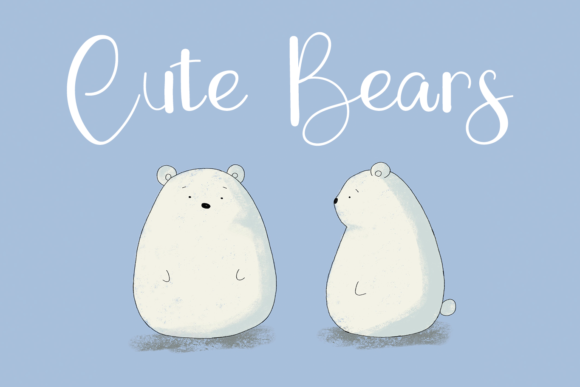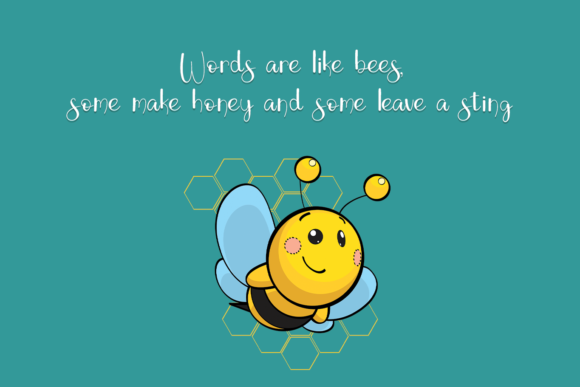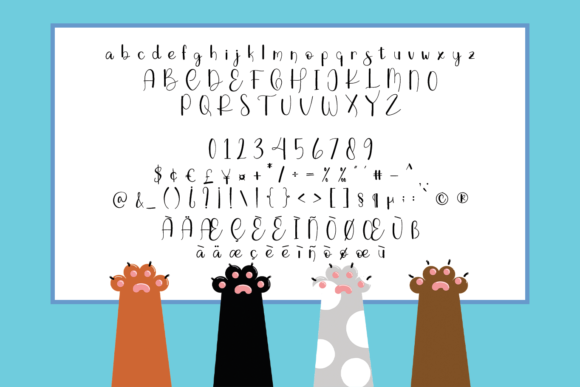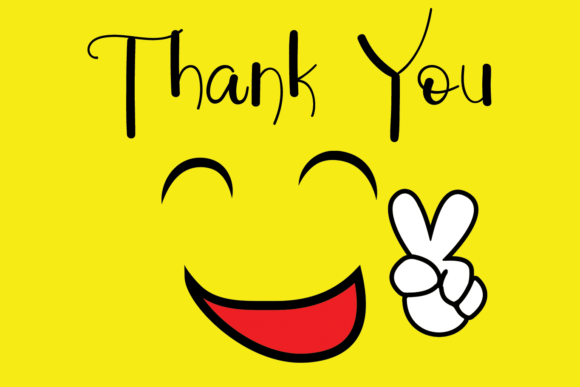
My Way Font
About My Way Font
My Way is a cool, friendly, and sweet display font. It embodies playfulness and authenticity and is the perfect choice for any children’s activity or school project.